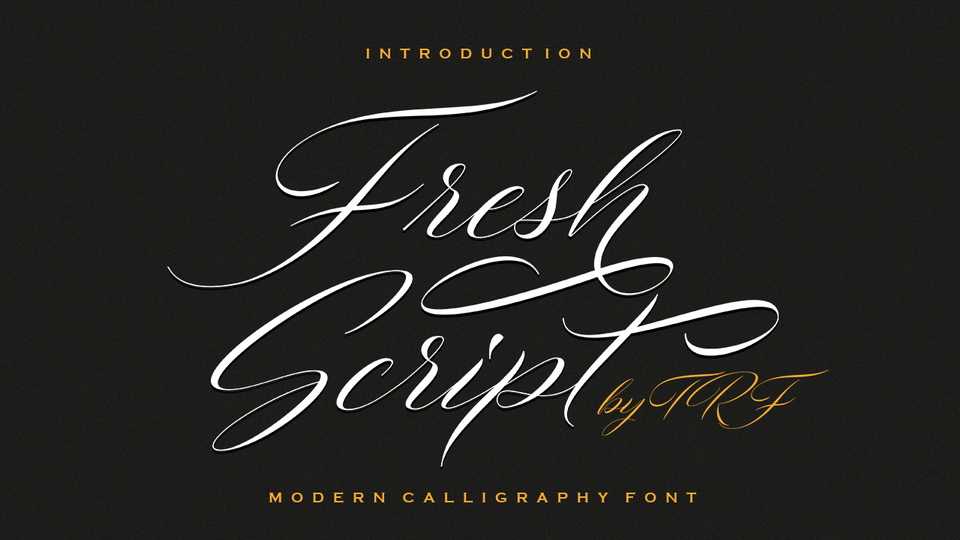
Download Fresh Script font, a beautiful handwritten calligraphy typeface with an elegant touch and free flow. This modern style of Fresh Script is perfect to be applied in various formal forms.
Designer: Teuku Riski Firmana